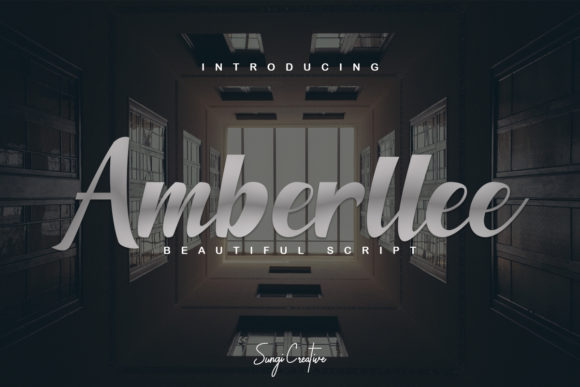
Introducing Amberllee Font - A Handcrafted Masterpiece of Elegance
In the vast realm of digital design, typography reigns supreme, with the ability to transform the mundane into the magnificent. Amidst this artistic landscape, Amberllee Font emerges as a radiant beacon of beauty and sophistication, ready to elevate your creative endeavors to new heights.
Crafted with meticulous attention to detail by the skilled hands of SungiCreative, Amberllee embodies the essence of grace and fluidity. Its delicate strokes, reminiscent of a calligrapher's quill, dance across the screen with an effortless charm, leaving a trail of visual delight.
Whether you're a seasoned designer seeking to add a touch of elegance to your projects or a novice just beginning your typographic journey, Amberllee Font is your perfect companion. Its versatile nature allows it to seamlessly adapt to a myriad of design styles, from classic and vintage to modern and contemporary.
Picture this: a heartfelt thank-you note penned with the Amberllee Font, its characters flowing together in perfect harmony, conveying your gratitude with a touch of timeless charm. Or envision a wedding invitation adorned with the graceful curves of Amberllee, setting the tone for an unforgettable celebration.
With Amberllee Font, the possibilities are boundless. Unleash your creativity and let your words take flight, knowing that this exquisite font will do justice to your every expression. Embrace the power of typography and watch as your designs blossom into works of art.
So, embark on this typographic adventure with Amberllee Font, and let your creative spirit soar to new heights. Let your words shine with elegance, and let your designs captivate the hearts of all who behold them.